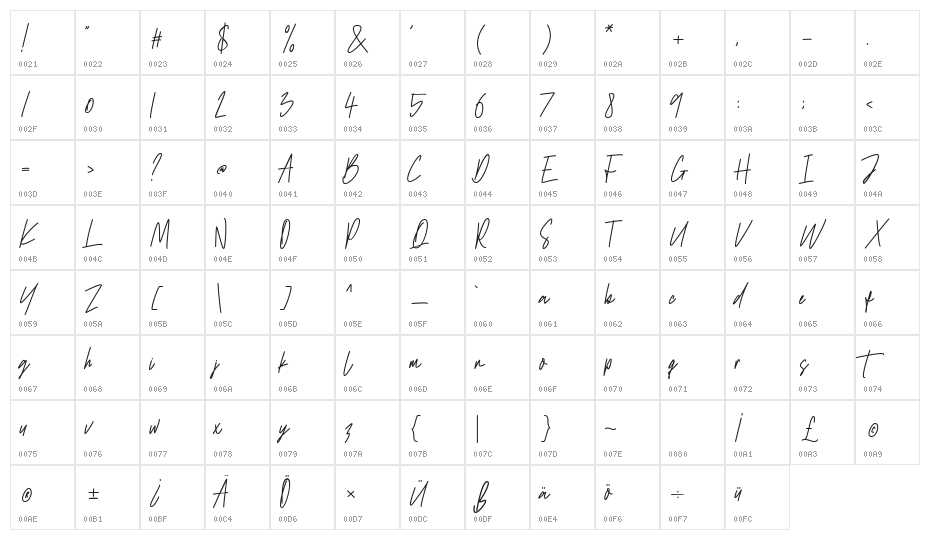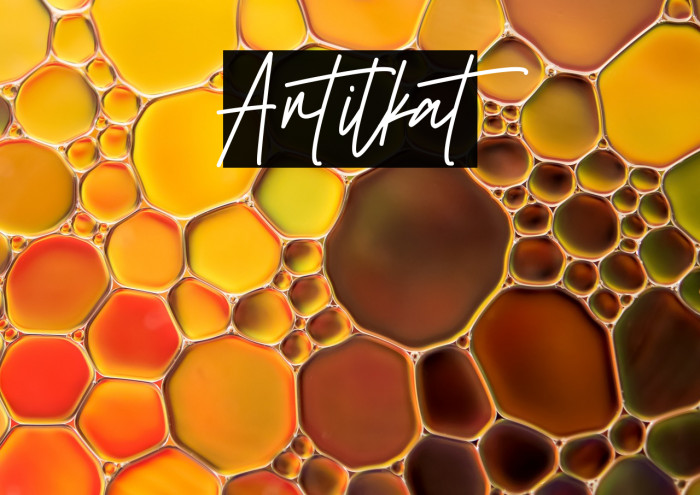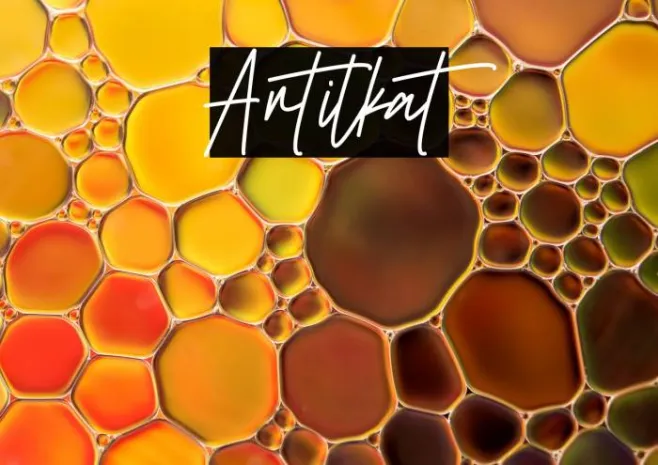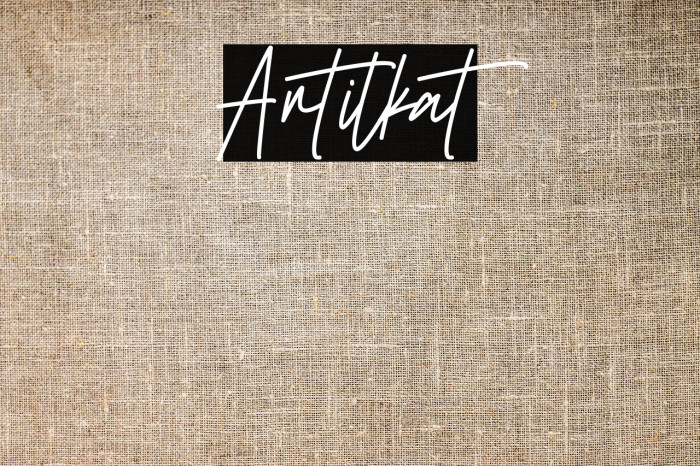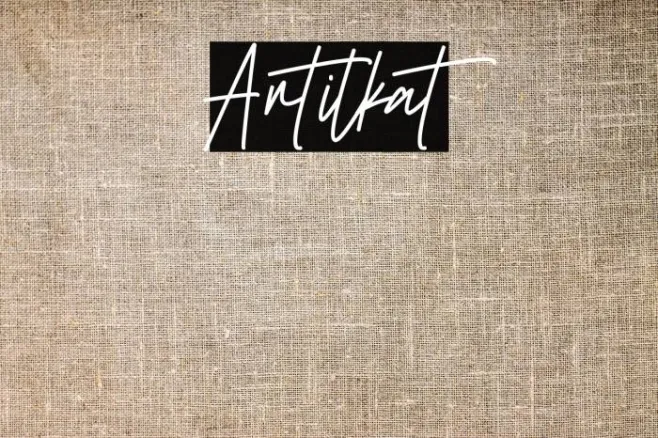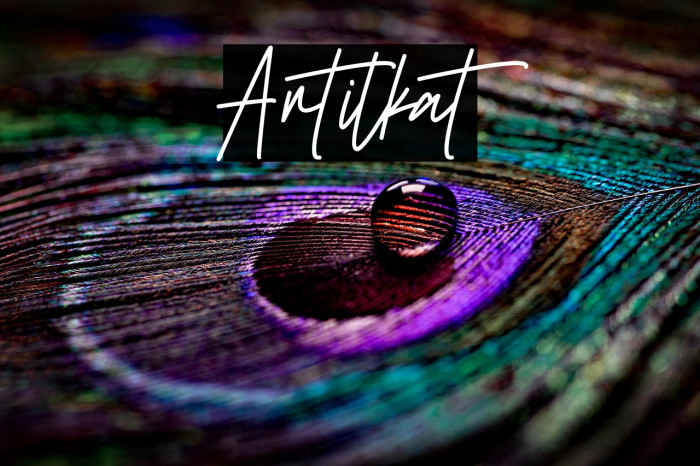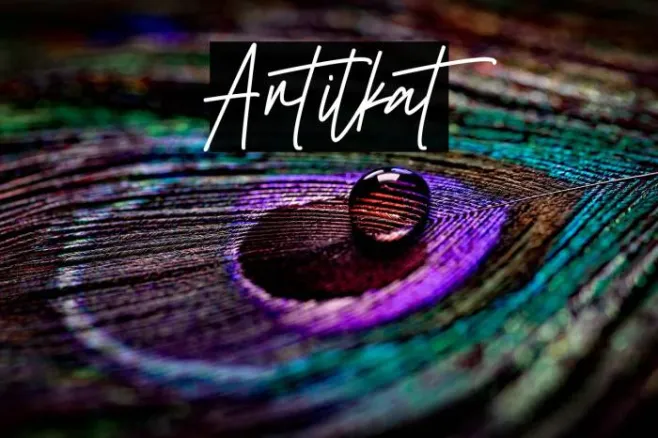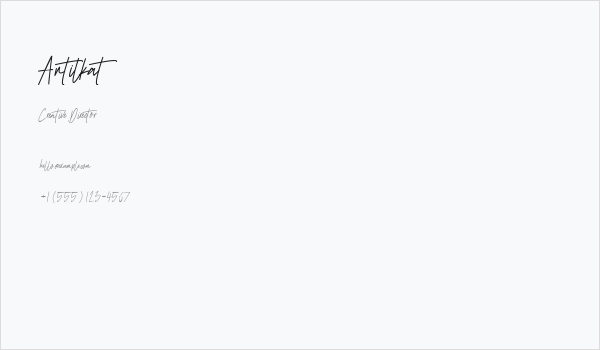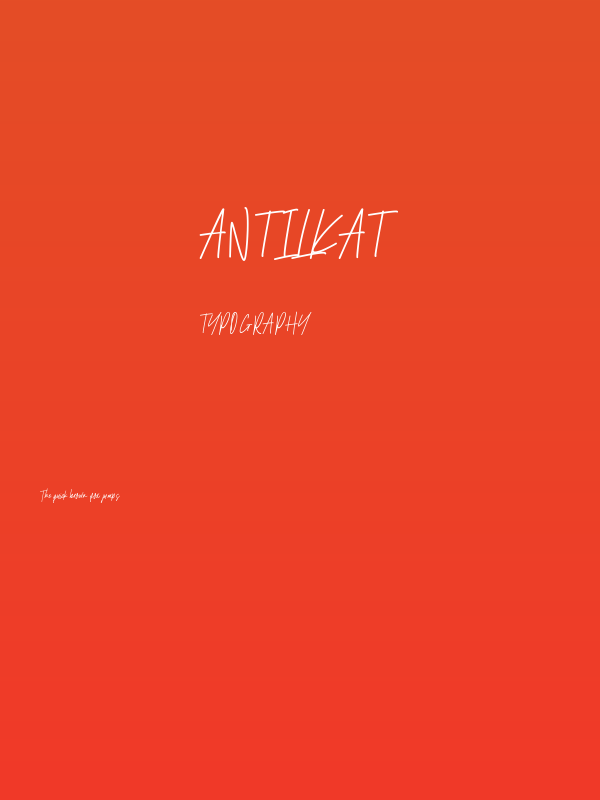
Antilkat Font
Antilkat Description
This font exudes a casual, handwritten style with a modern twist. The letters are fluid and dynamic, capturing the essence of a personal touch. The uppercase characters are tall and slightly slanted, giving a sense of movement and energy. The lowercase letters maintain a consistent flow, complementing the uppercase with their smooth curves and natural connections. Numbers and special characters follow the same handwritten aesthetic, ensuring a cohesive look throughout. The overall appearance is both stylish and approachable, making it suitable for projects that require a personal or informal tone.
| Use Case | Logos, Invitations, Social Media |
| Proposed Projects | Ideal for personal branding, invitations, greeting cards, and social media graphics. |